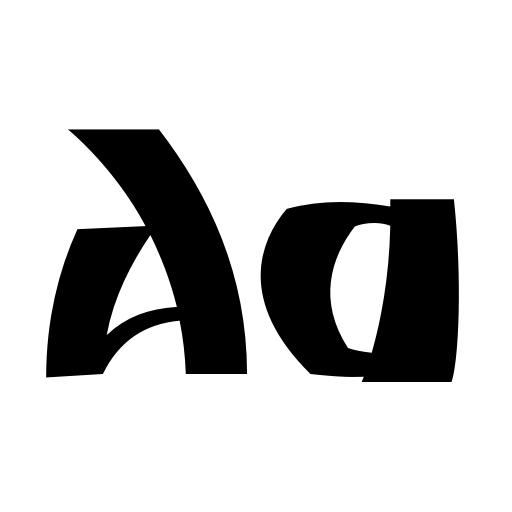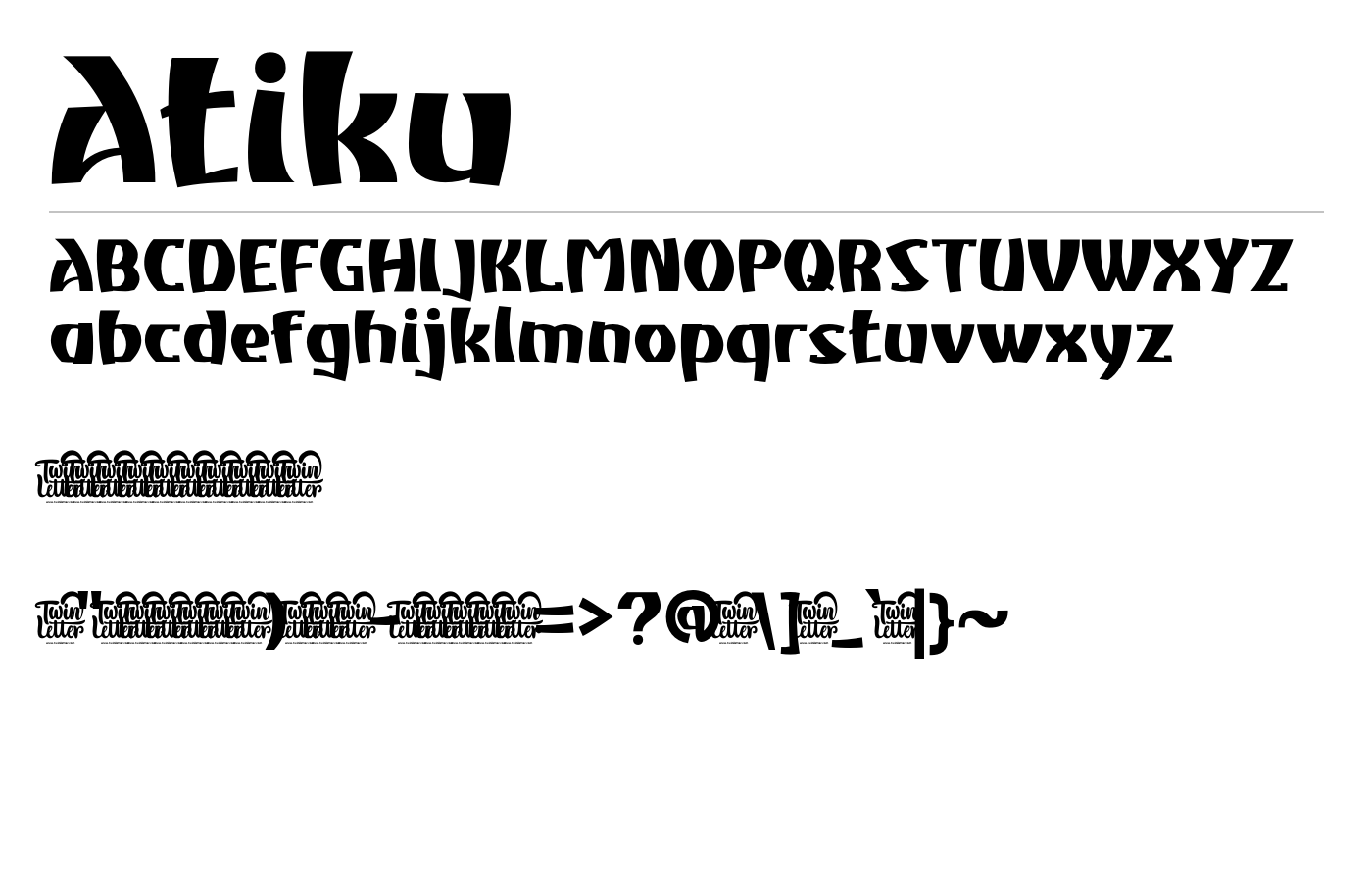
Atiku is a bold and unique sans serif font with a playful and slightly quirky character, featuring irregular stroke widths and dynamic shapes that give it a lively, handcrafted feel. Its strong presence and distinct letterforms make it ideal for eye-catching headlines, logos, and creative branding where a fun yet confident style is desired. This font works well in projects that need personality and impact, standing out in posters, packaging, and editorial designs.
Atiku Font
About Atiku Font